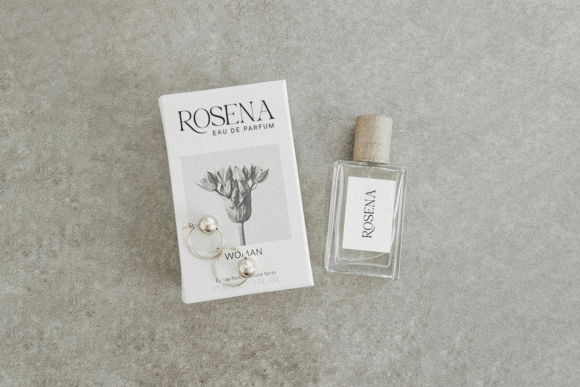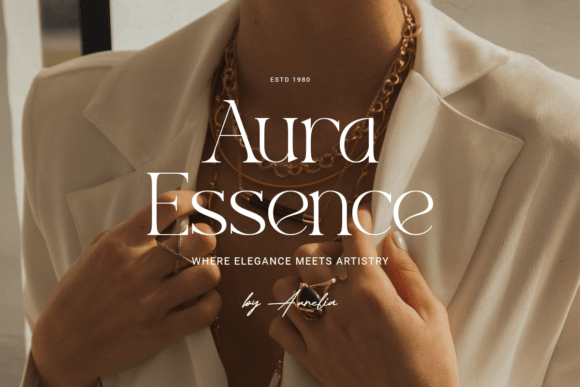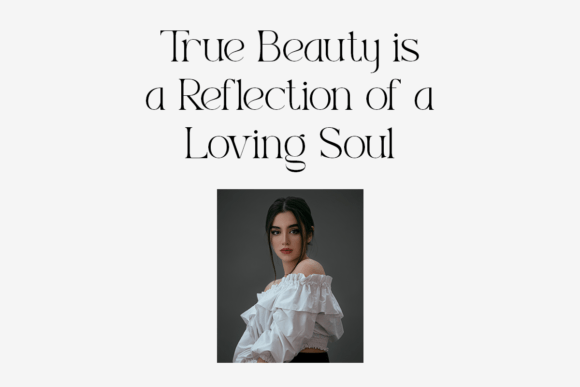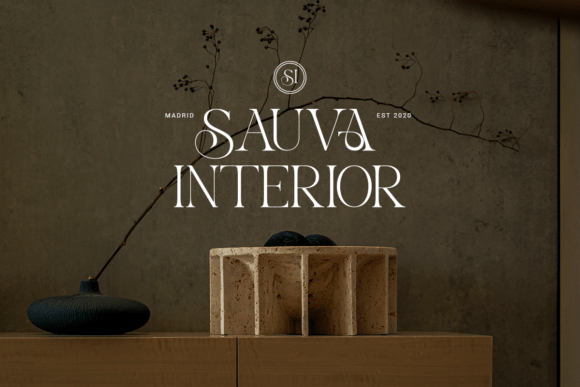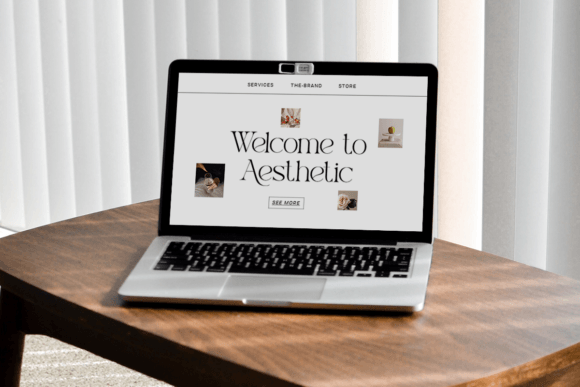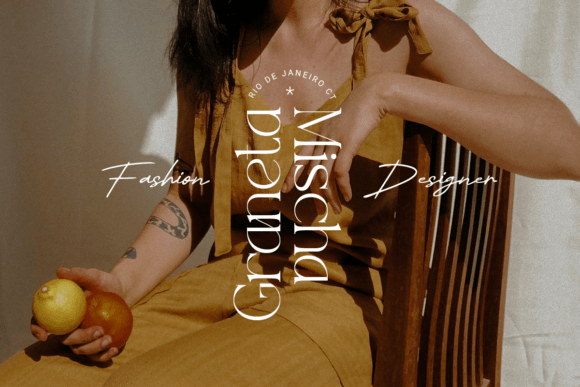
Introduction to Pyrocraft Font
As a designer, you’ve probably had that moment when you’re working on a creative project and you’re stuck on the perfect font to give it that extra oomph. Maybe you’ve spent hours scouring through free download websites, tweaking kerning and experimenting with different combinations, only to end up with a design that still feels missing something. That’s where the Pyrocraft Font comes in – a modern, elegant serif typeface that’s designed to elevate your designs and take them to the next level.
The Pyrocraft Font is more than just a pretty face, though – it’s a powerful design resource that’s packed with unique alternatives, multilingual support, and perfect kerning. Whether you’re working on a luxury logo, a classy editorial design, or a high-end fashion brand, this font is the perfect choice to give your project a touch of sophistication and elegance.
Key Features of Pyrocraft Font
- High-quality design for creative projects, including logos, posters, and more.
- Unique characteristics include bold, modern lines and a fiery, energetic feel, perfect for projects requiring a dynamic touch.
- Designed to be highly versatile, making it suitable for a wide range of creative projects, from digital art to print materials.
Honest Review: Pyrocraft Font
I recently came across the Pyrocraft Font, and I must say it’s a pretty interesting find. As a designer, I’m always on the lookout for unique and high-quality design resources that can elevate my creative projects. And this font certainly fits the bill.
What works well about the Pyrocraft Font is its versatility. It’s a free download, which is a major plus for designers on a budget, and it comes with a transparent background, making it easy to work with. The font itself is also well-designed, with a unique and quirky aesthetic that’s perfect for creative projects.
- ✨ Unique and quirky aesthetic
- ✨ Versatile and easy to work with
However, there are a few limitations to keep in mind. The font may not be suitable for all types of projects, particularly those that require a more formal or traditional look. Additionally, the font’s uniqueness can sometimes make it difficult to read, particularly in smaller sizes.
- ⚠️ May not be suitable for all types of projects
- ⚠️ Can be difficult to read in smaller sizes
Overall, I’d say the Pyrocraft Font is a great addition to any designer’s toolkit. It’s a unique and high-quality design resource that’s perfect for creative projects. Just be sure to use it wisely and in the right context.
Pyrocraft Font
Pyrocraft Font is ideal for graphic design, logo creation, and typography-based projects. It can also be used in presentations, documents, and other creative applications where a high-quality, unique font is required.